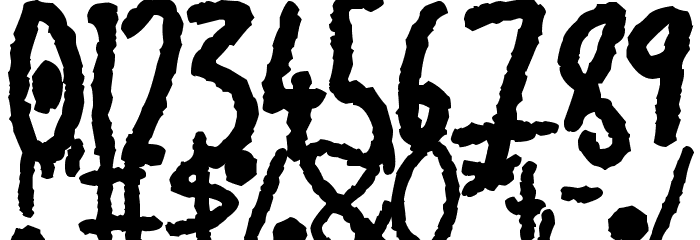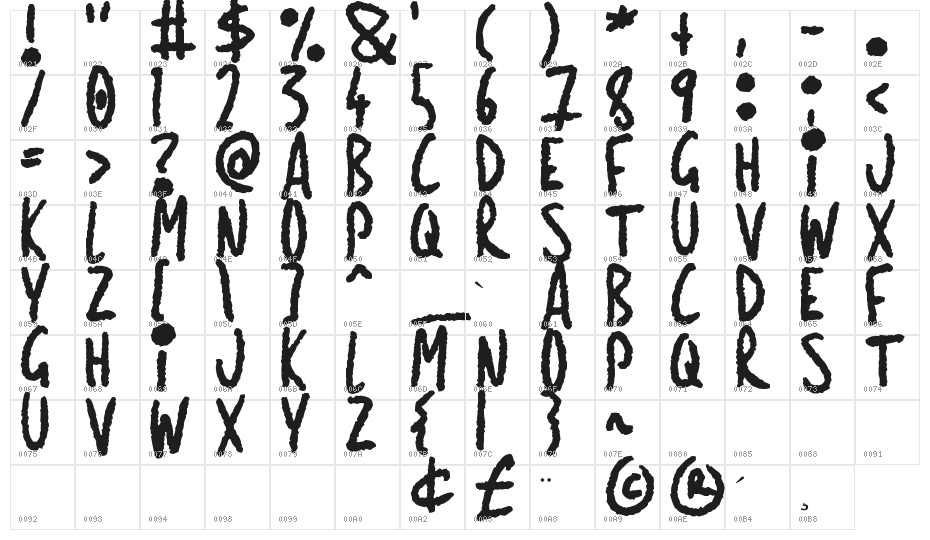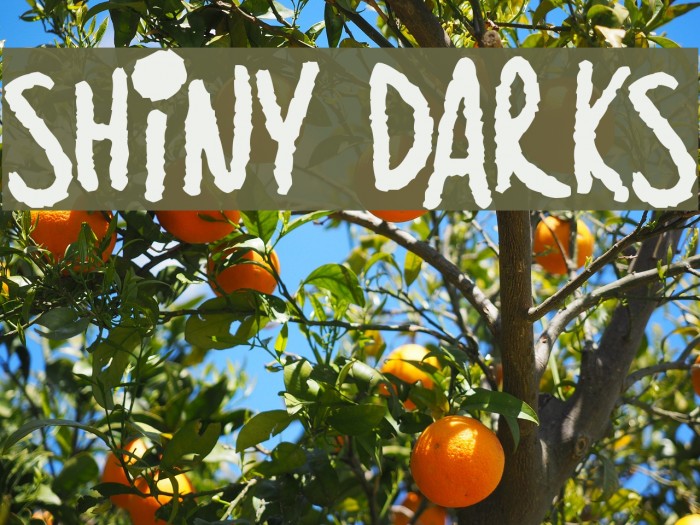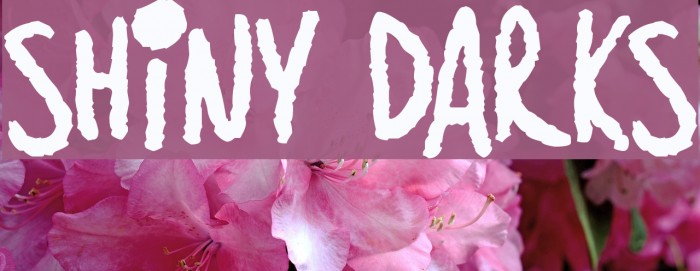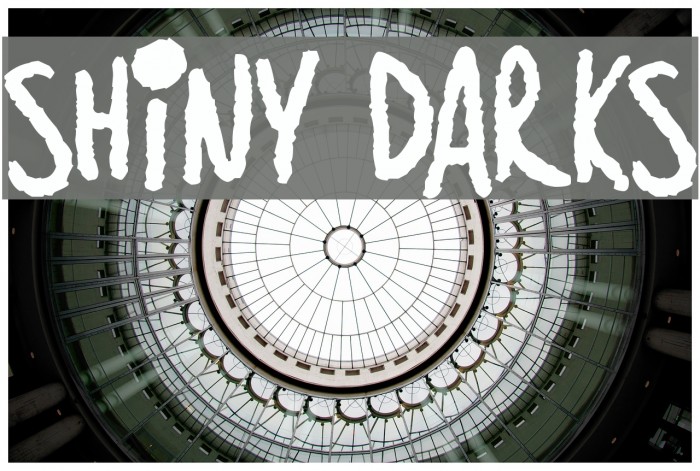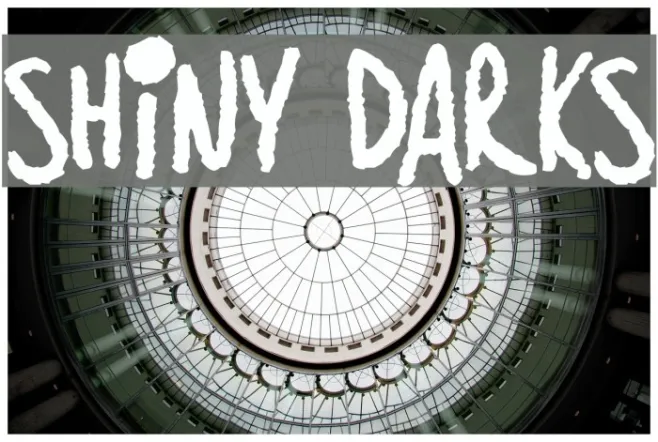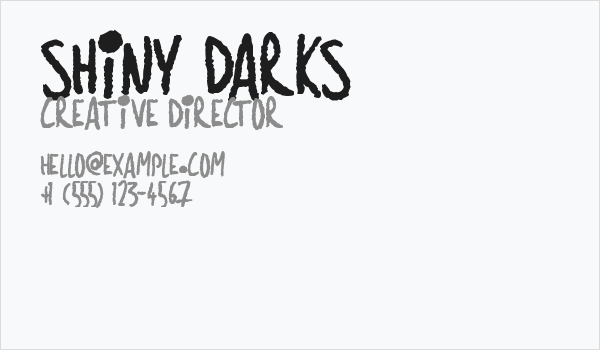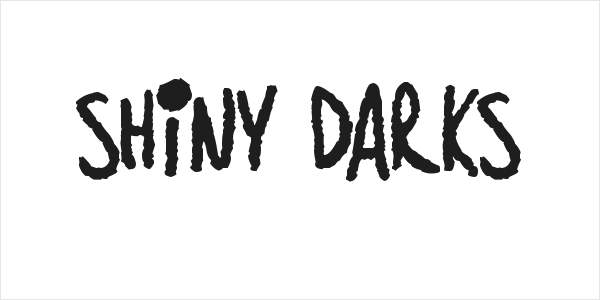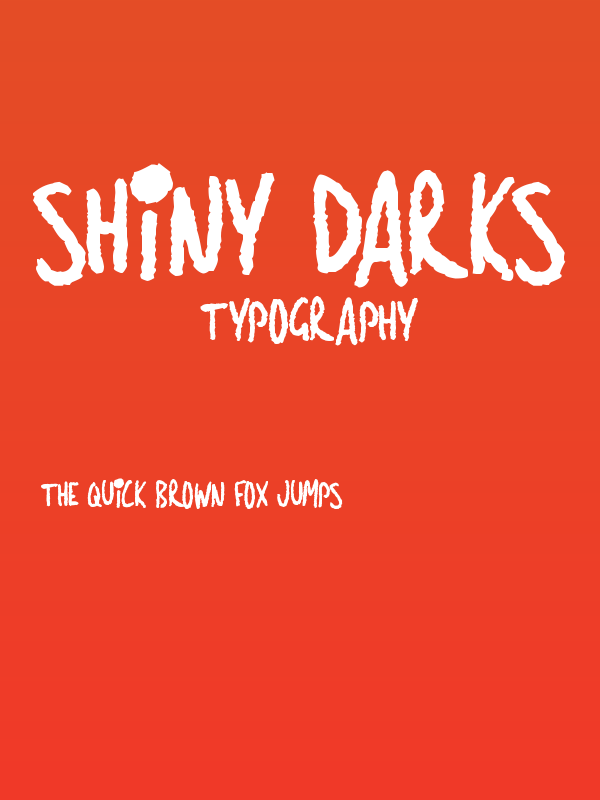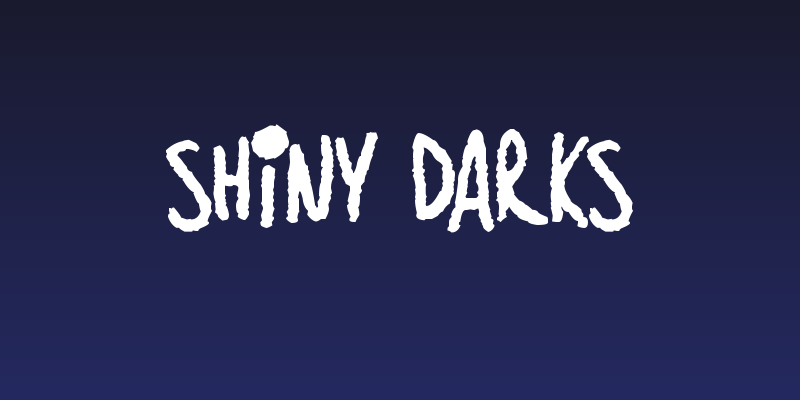
Shiny Darks Font
Shiny Darks Description
This font features a bold and expressive style with a hand-drawn appearance. The characters are irregular and organic, giving a sense of spontaneity and creativity. The strokes are thick and uneven, adding to the dynamic and energetic feel. The uppercase and lowercase letters maintain a consistent style, while the numbers and special characters follow the same artistic approach. This font is ideal for projects that require a personal and artistic touch, such as posters, album covers, or creative branding.
| Proposed Projects | Ideal for posters, album covers, creative branding, and artistic projects. |